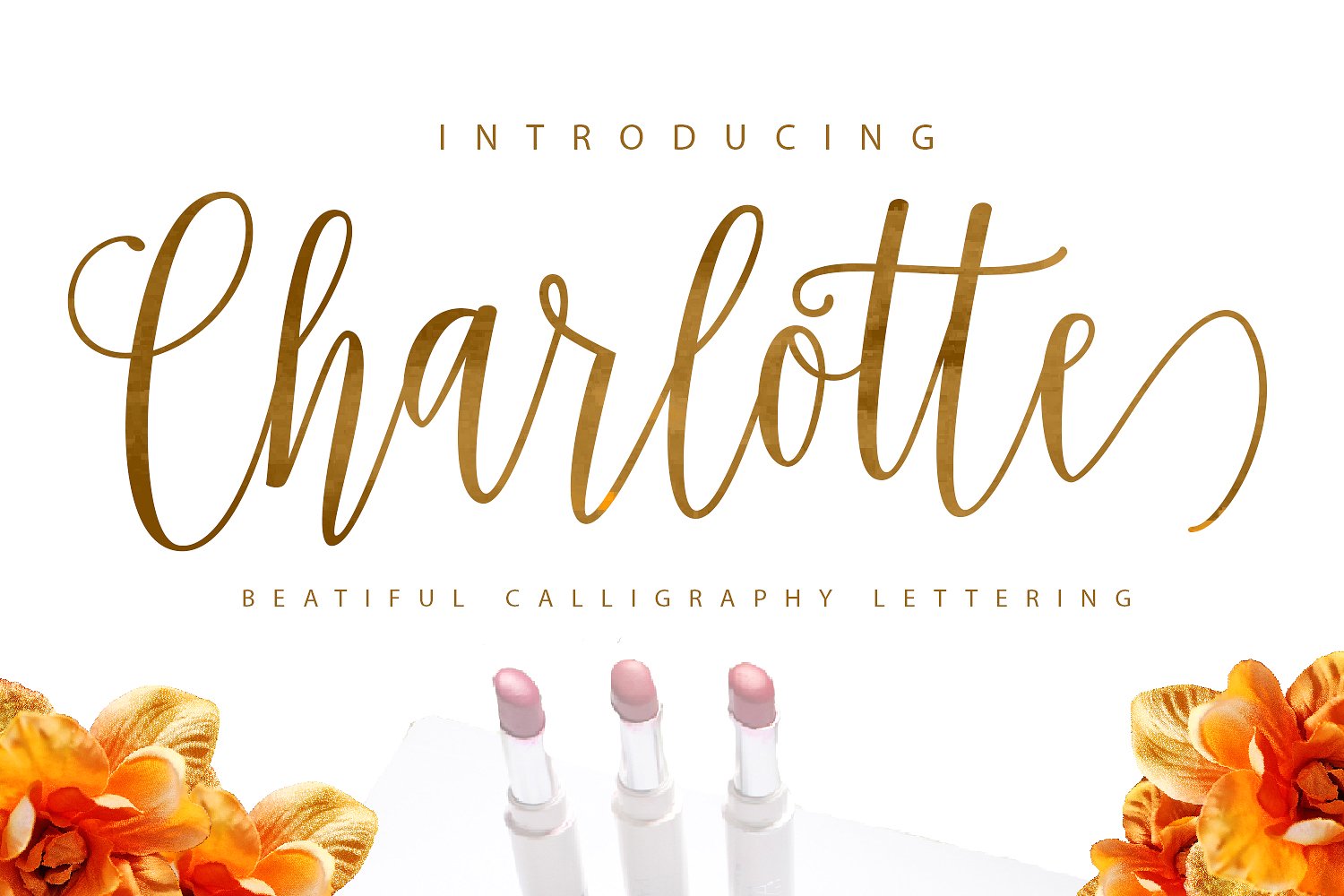
Charlotte Script Font
Introducing Charlotte the new script calligraphy hand lettered typography modern calligraphy script, which combines classic style with a modern style calligraphy